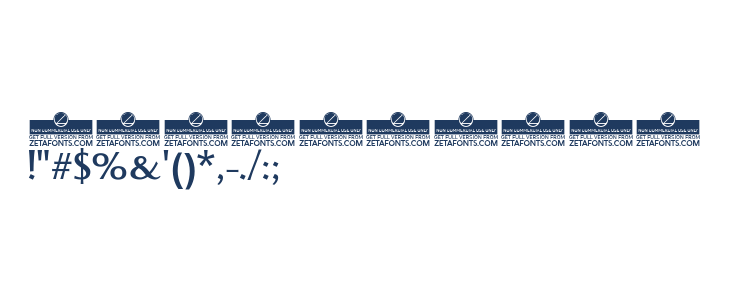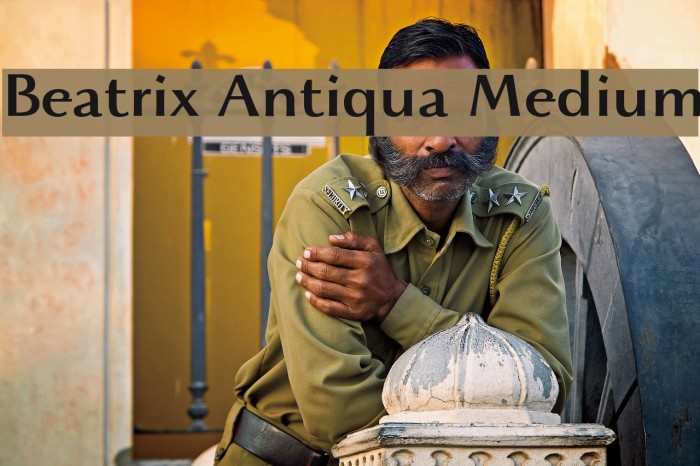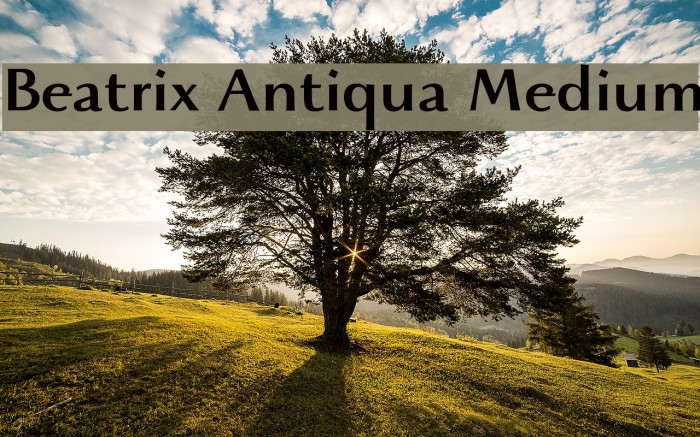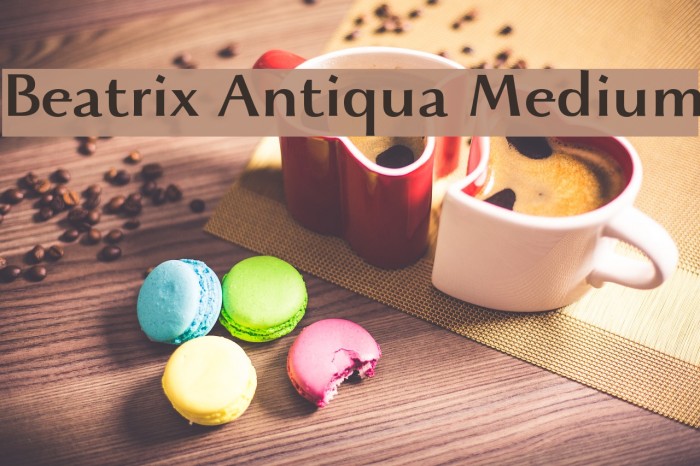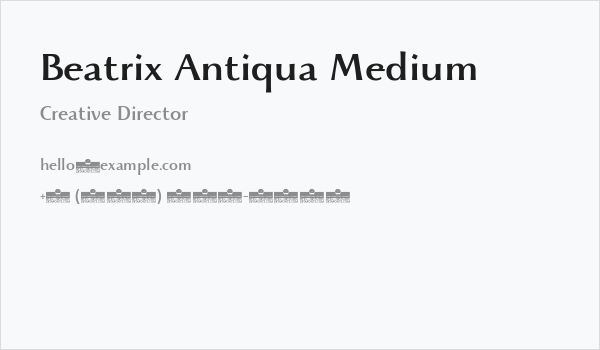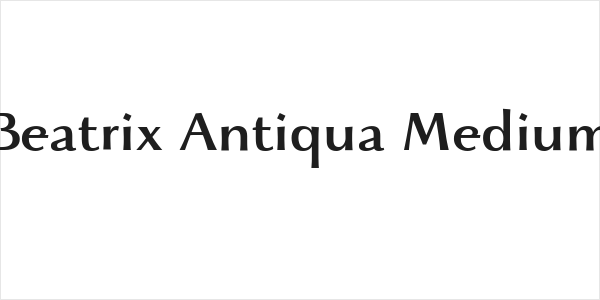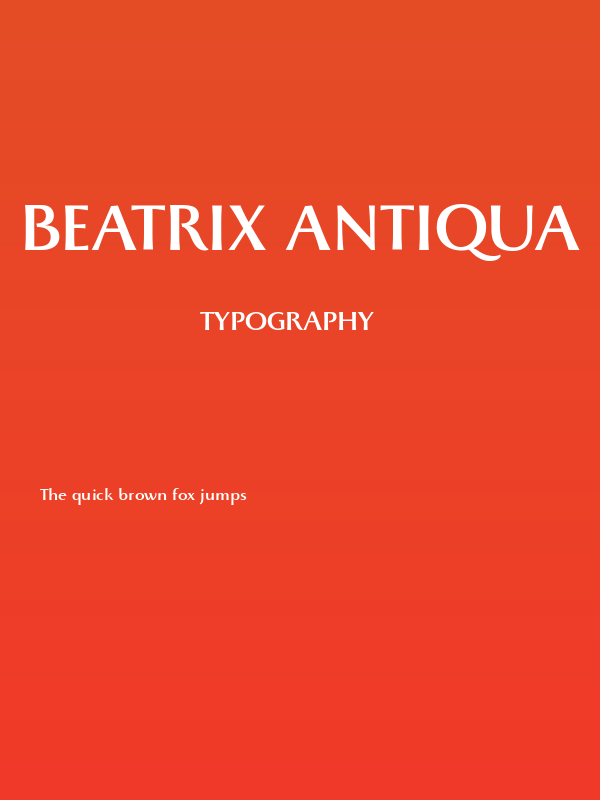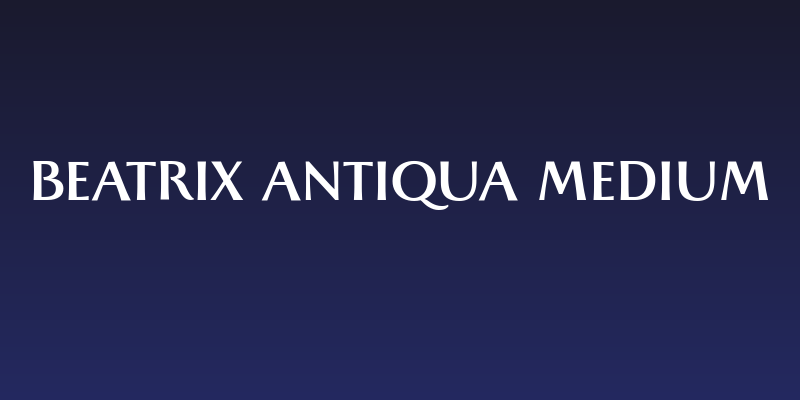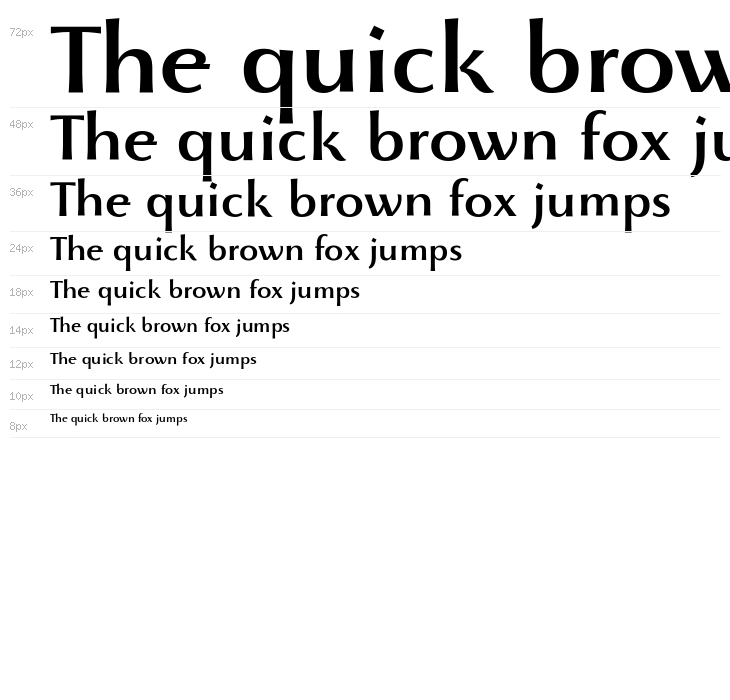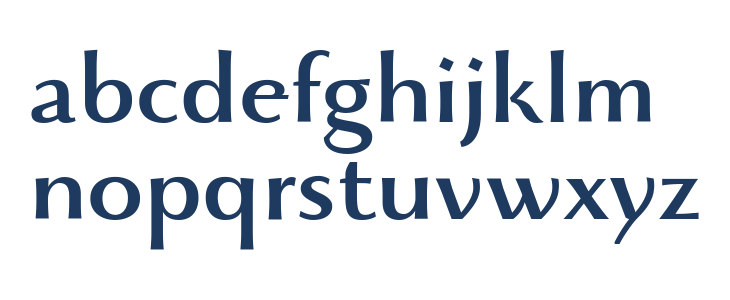
Beatrix Antiqua Medium Font
Beatrix Antiqua Medium Description
This font exhibits a classic and elegant style, characterized by its clean lines and balanced proportions. The uppercase letters are bold and commanding, while the lowercase letters maintain a graceful and fluid appearance. The serifs are subtle yet distinct, adding a touch of sophistication. The numerals are clear and legible, making them suitable for various applications. Special characters are well-defined, ensuring versatility in design projects. Overall, the font combines traditional elements with a modern touch, making it suitable for a wide range of uses.
| Proposed Projects | Ideal for editorial design, book covers, formal invitations, and branding projects that require a touch of elegance. |